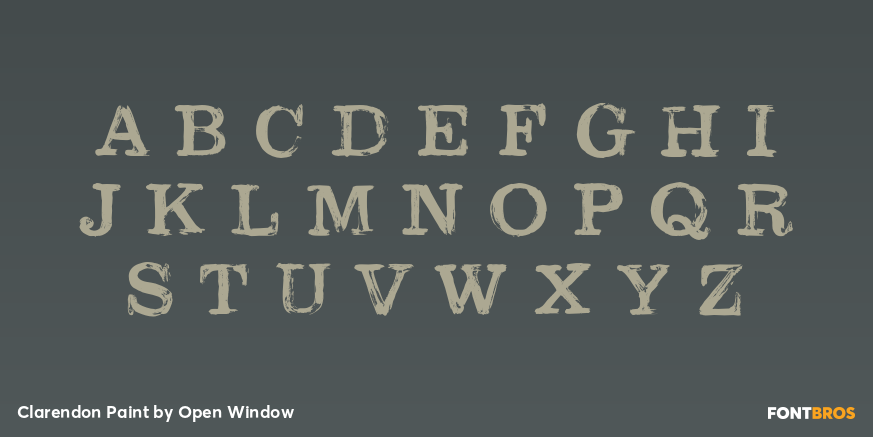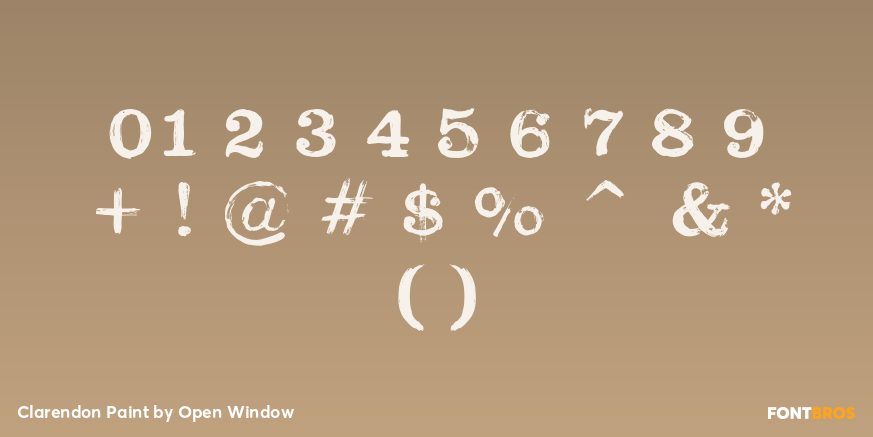
Clarendon Paint
Font Family by Open Window
Clarendon Paint offers a gritty twist on a classic font style (Clarendon). It was completely hand painted which makes the font an organic centerpiece to any of your grungy design applications.